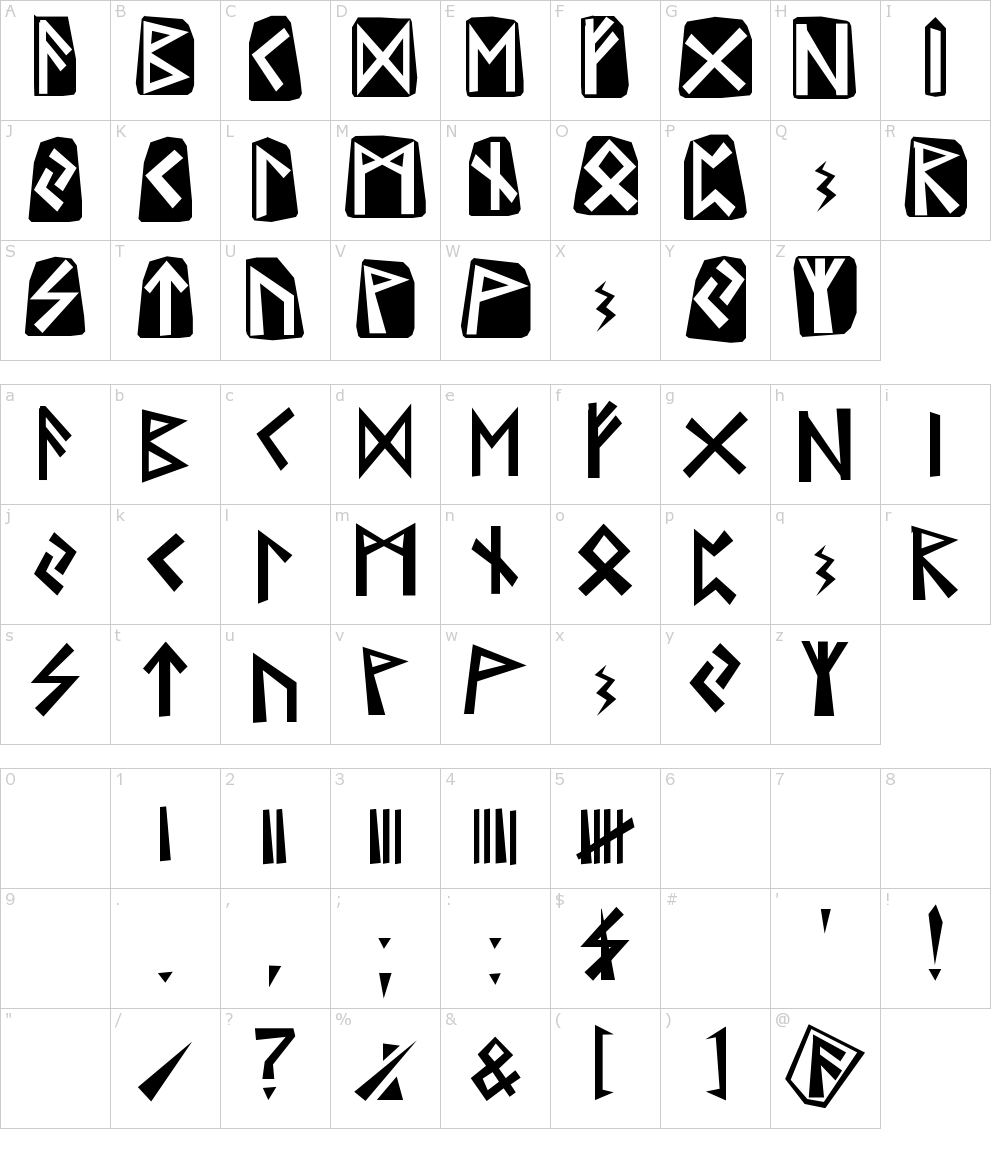
Developed as a decorative typeface in 1935, runic condensed has short serifs and little contrast between the thick and thin strokes. Here is an example of a paragraph set in runic sans plain plain. The font was designed by dmitry dervenjov drawing nikolay dubina created and free for personal use.
In This Very Condensed Typeface,.
Nothing Quite Evokes Power And Mysticism In Designs Like Nordic Fonts.
Tolkien For Use In His Novels.